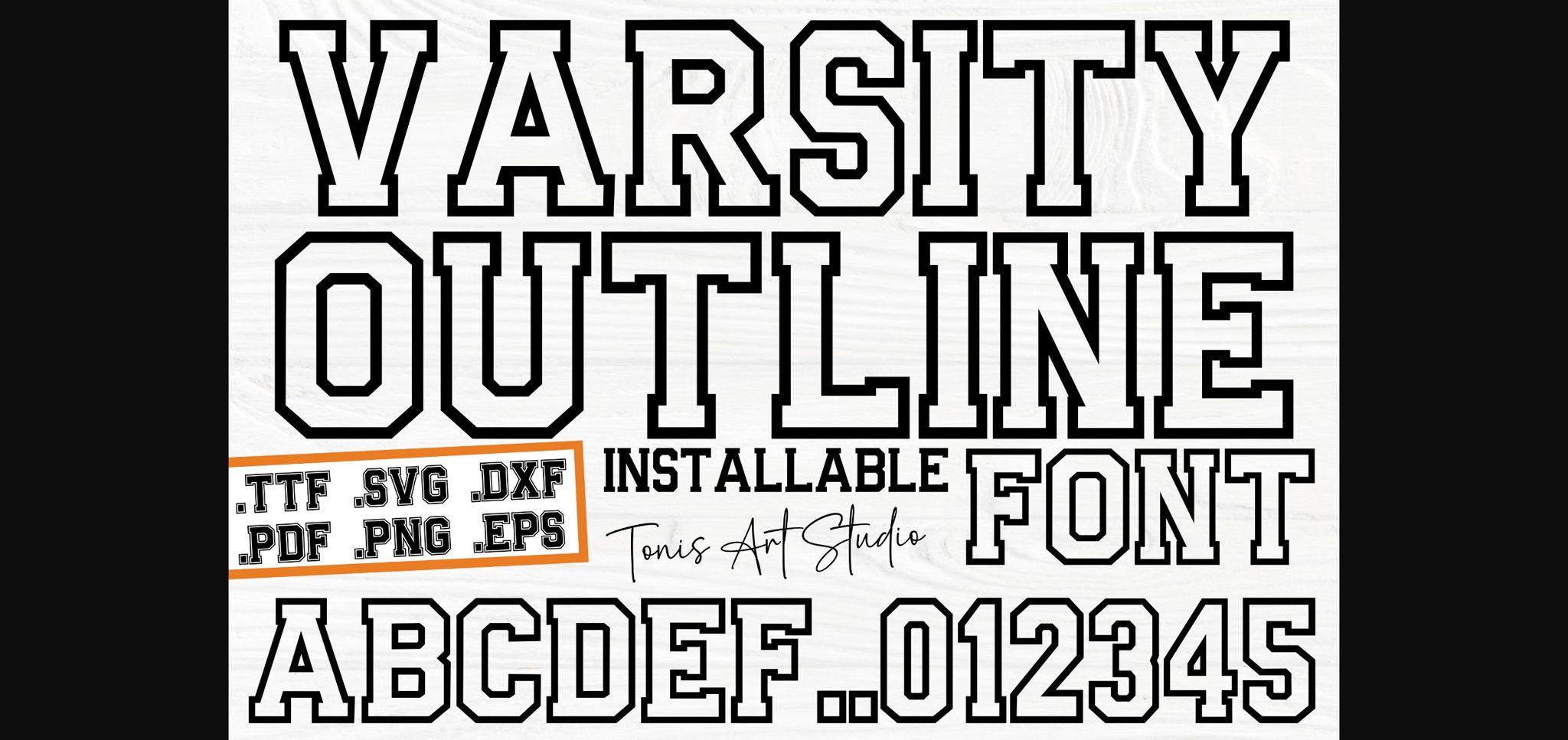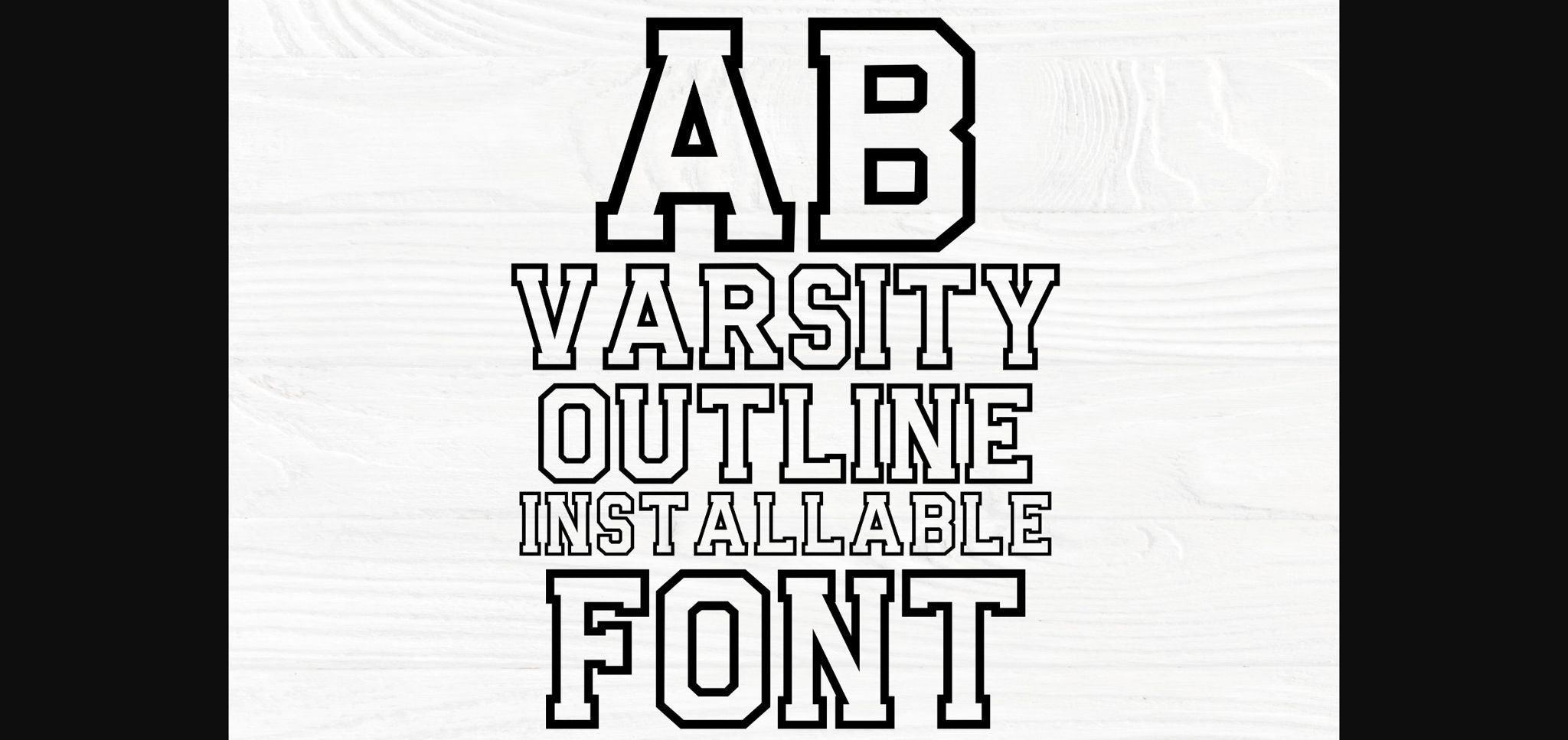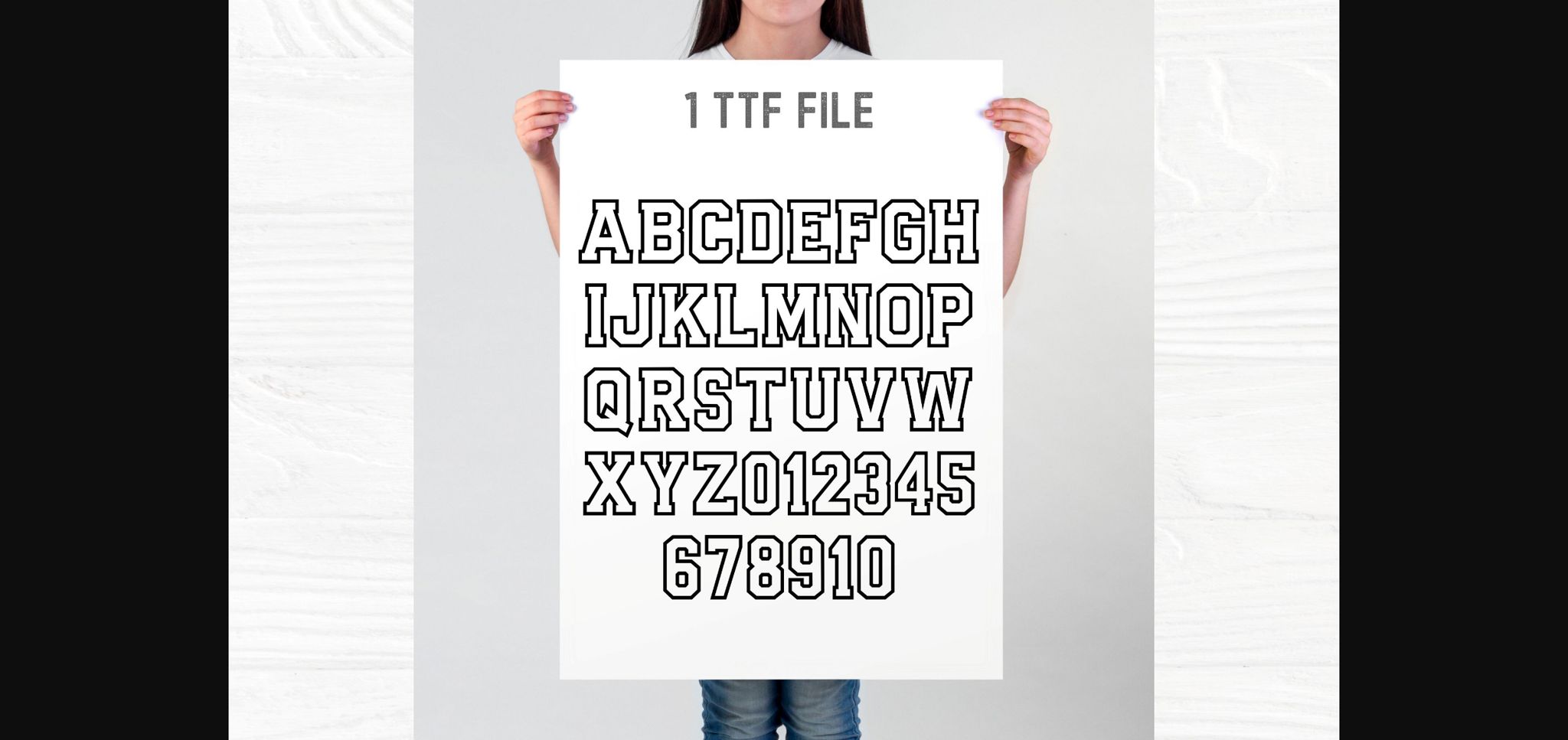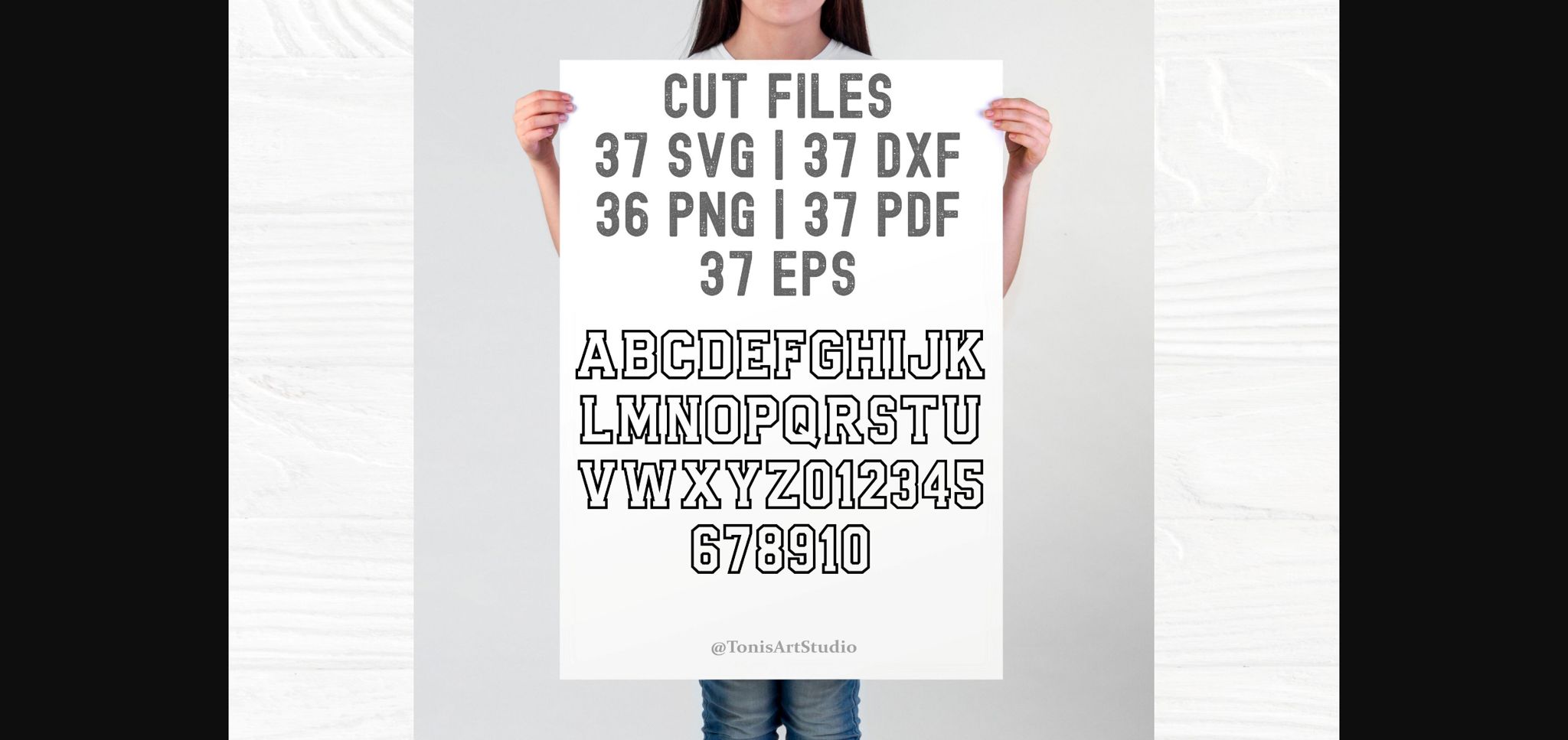
Ab Varsity Outline Font
About Ab Varsity Outline Font
Add a classic touch to your crafting projects with this versatile varsity font svg! This listing includes Varsity Outline Font SVG TTF files, perfect for adding a sporty look to any design. Use these varsity letters to create customized college-inspired artwork, team logos, or apparel designs. Get your hands on this must-have collection and elevate your creations with a touch of timeless style.